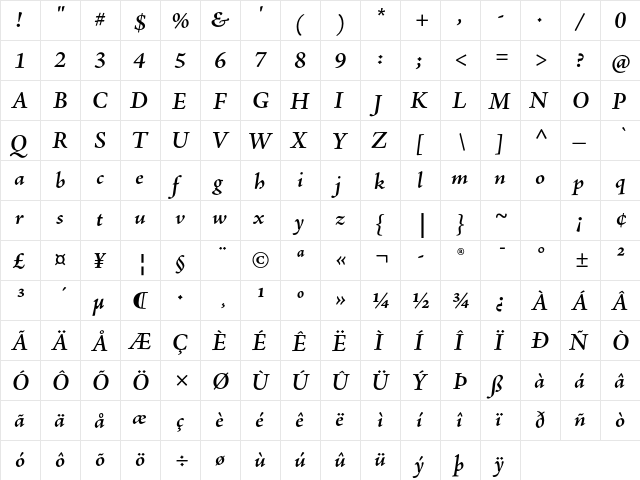
Adobe Jenson Pro Semibold Italic Font Preview
| Designer | Robert Slimbach |
Design Context for Adobe Jenson Pro Typeface
Adobe Jenson Pro takes a measured approach to typography — its balanced proportions and neutral character make it a reliable workhorse for both digital and print work. Its italic angle brings a sense of urgency and motion to the letterforms. The heavy weight commands attention and anchors typographic hierarchies.
Pro Tip: Use Adobe Jenson Pro for emphasis, pull quotes, and subheadings where its slanted energy can add rhythm to the layout.